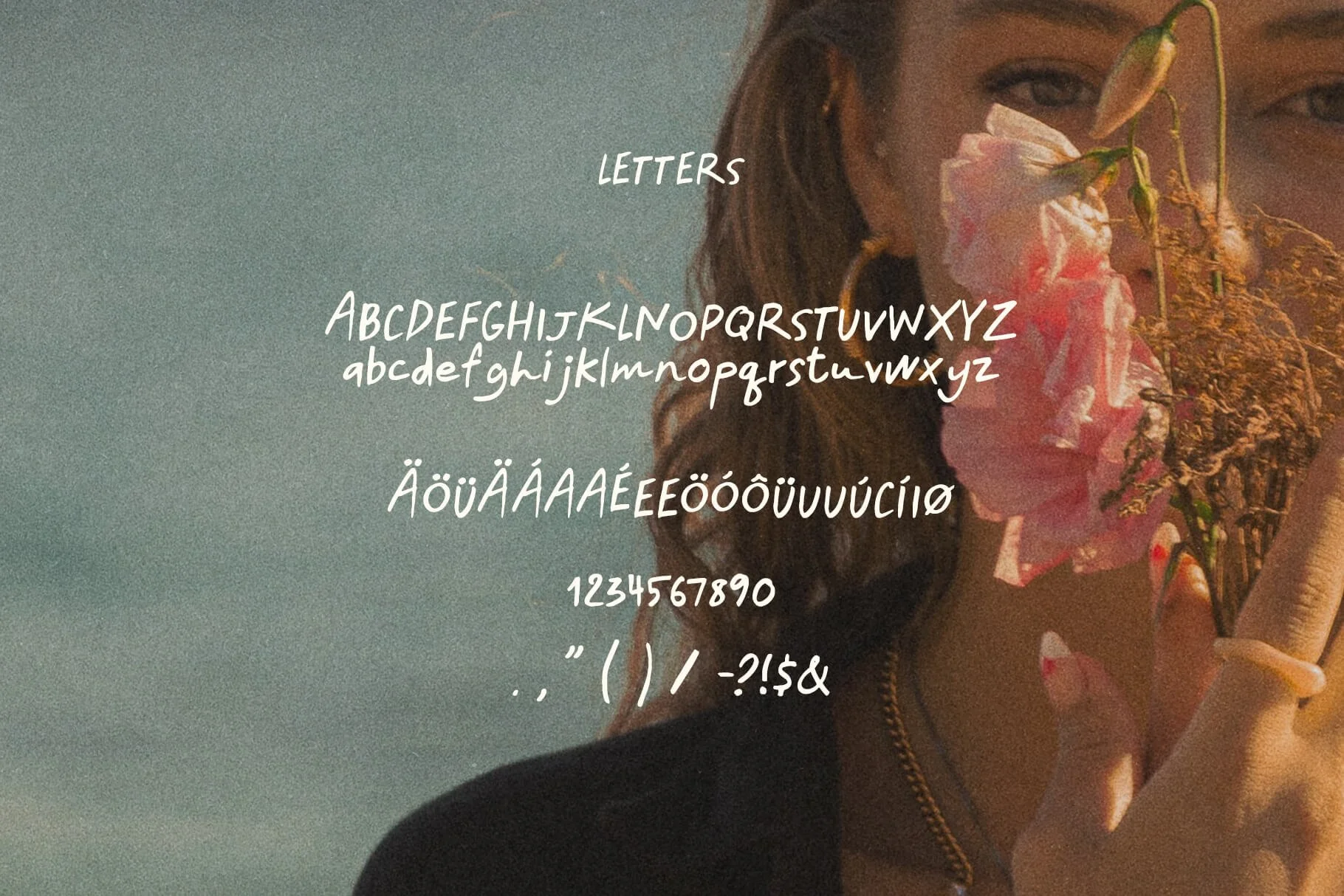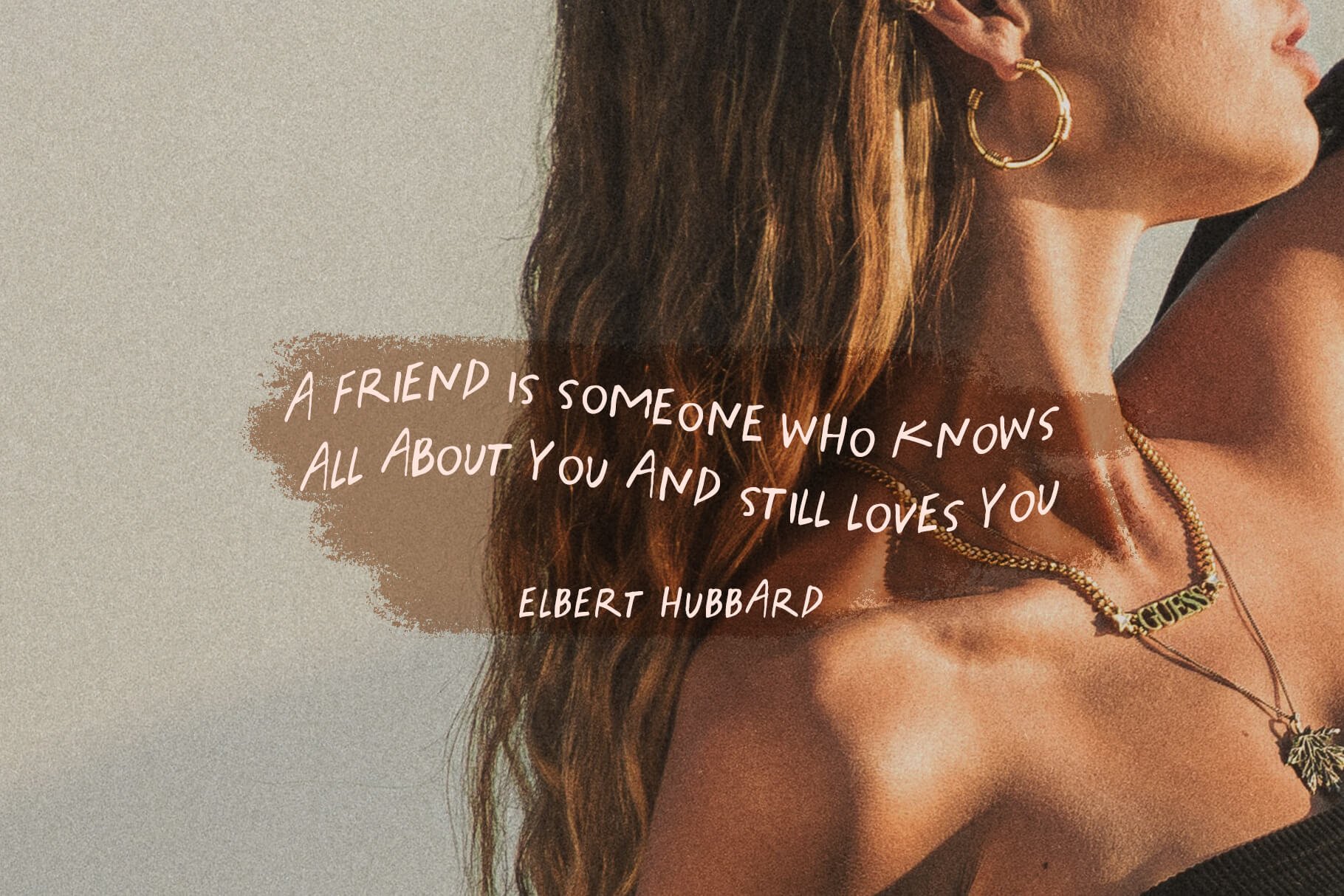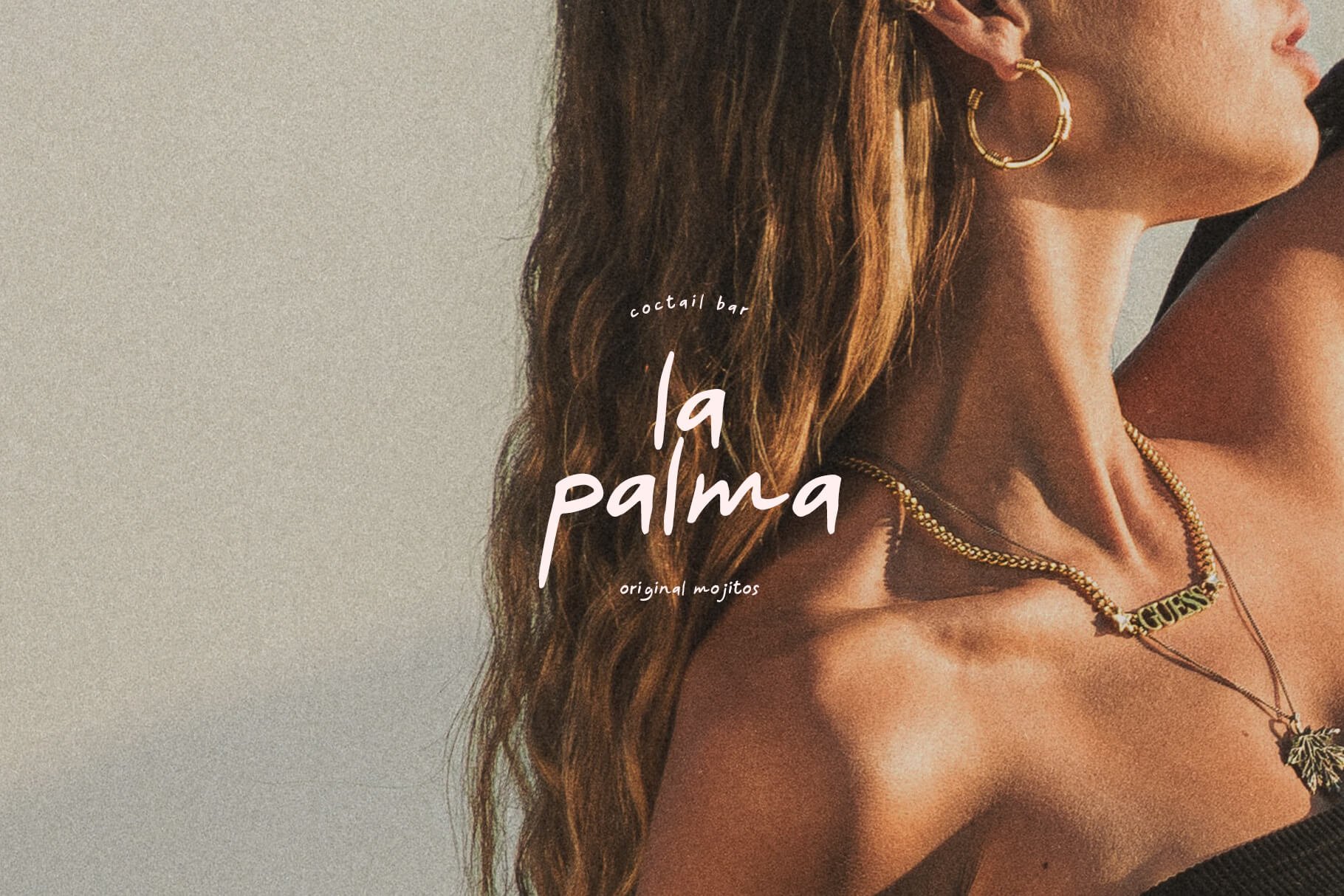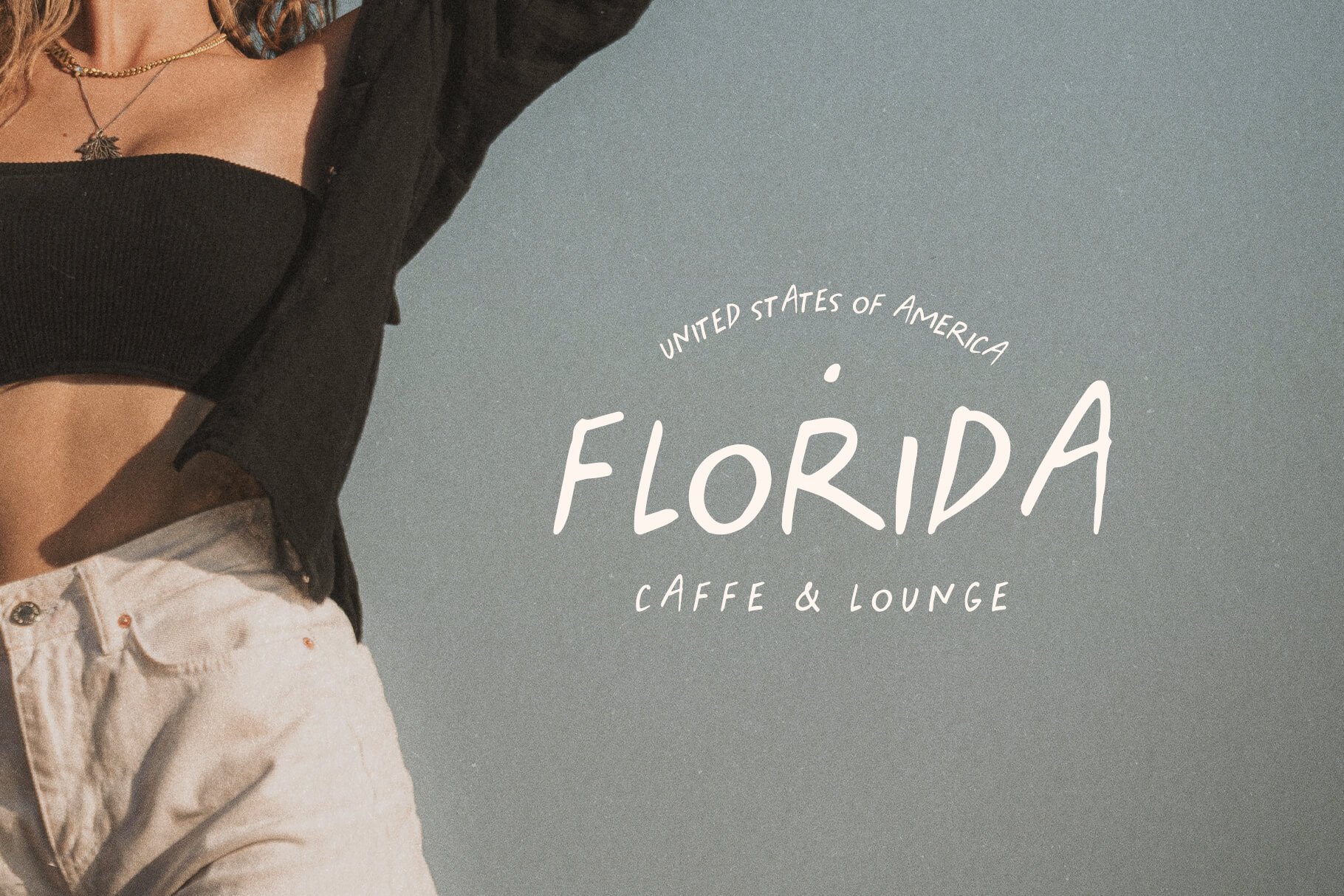
Summer Mood Handwritten Font
Welcome to your summer oasis! Introducing Summer Mood, our beautifully hand-crafted font that adds zest and personality to all of your projects. From stellar quotes to sweet greeting cards, this handwritten font is the perfect remedy for your summer-inspired designs — adding a hint of warmth and sunshine to every project!
Our Summer Mood font is designed with readability in mind, making it ideal for everything from invitations and business cards, to birthday cards and logo design. Every curve and every special character has been crafted as an homage to artistry and nature. The deep, relaxed curves will evoke a sense of calm in any eye that beholds them.
So if you're looking for that perfect piece of typography for your next project, look no further! With its unique personality and vividness - without sacrificing clarity - Summer Mood is the go-to choice for all your branding needs. Download now and get creative with Summer Mood font!
UPDATE VERSION 2.0:
• NEW SYMBOLS: Å Ä Á É Ö Ó Ú Ø æ œ ä ö ü å ö ü á é í ó ú ñ ß
• NEW KERNING
• Latin Extended